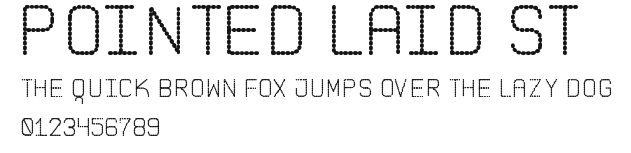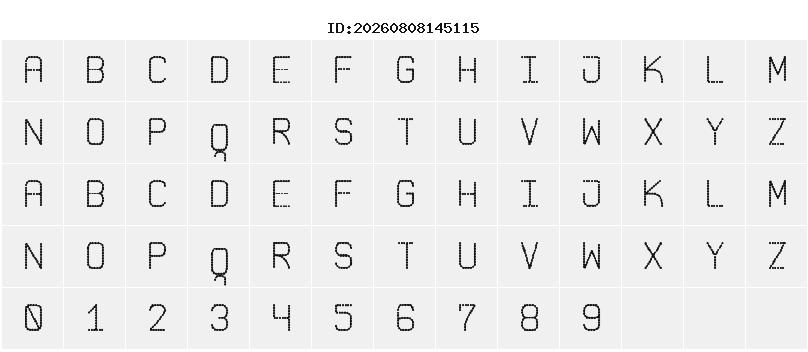
• Font Name: Pointed Laid St
• Font ID: Pointed Laid St:Version 1.00
• Full Font Name: Pointed Laid St
• PostScript Name: PointedLaidSt
• Character Count: 239
• Designer: This font is an original work of southype dot com
About Pointed Laid St.ttf
Pointed Laid St.ttf is a modern, elegant sans-serif font designed for ultimate readability and visual harmony. Perfect for branding, headlines, web design, and print materials.